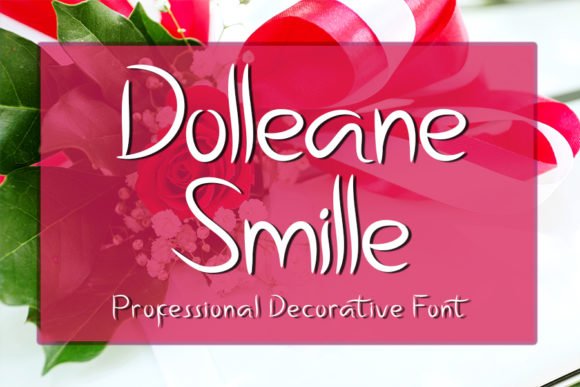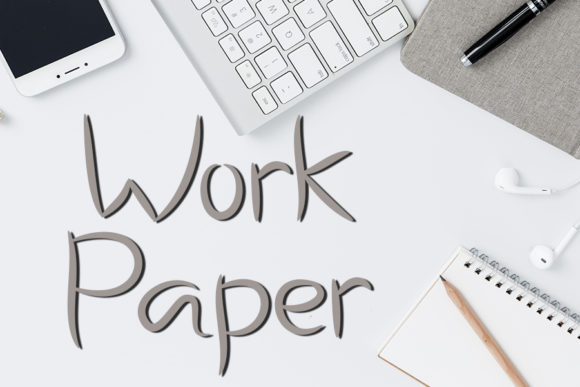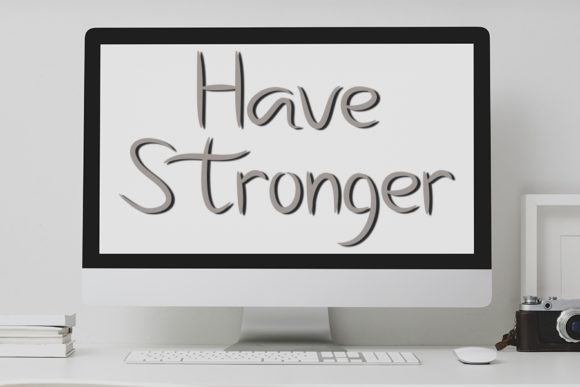
The Perfect Brushstroke: Elevating Designs with Dolleane Smille Font
Remember that moment when you’re working on a design project, and you’re stuck on finding the perfect font to convey your message? You scroll through endless options, and none seem to capture the essence of your vision. That’s when you stumble upon a hidden gem – a font that speaks to you, and elevates your design to new heights.
Enter Dolleane Smille Font, a stunning handwritten font that embodies classic calligraphy. This elegant font is a versatile tool for designers, allowing you to add a touch of sophistication to a wide range of projects, from branding and headings to wedding designs, invitations, and logos. With its charming and refined style, Dolleane Smille Font is an invaluable asset for designers looking to create truly memorable designs.
Dolleane Smille Font Key Features
- Unique Characteristics: Dolleane Smille Font is a unique, handwritten font that features irregular brushstrokes and subtle imperfections, giving it a personal and organic feel.
- Language Support: The font supports a wide range of languages, including Latin, Greek, and Cyrillic scripts.
- Font Weight and Style: Dolleane Smille Font comes in 2 font weights: Regular and Bold, and 2 font styles: Normal and Italic.
- Glyphs and Characters: The font contains over 400 glyphs and characters, including a wide range of punctuation marks, symbols, and special characters.
Dolleane Smille Font Review
I recently had the chance to work with the Dolleane Smille Font, and I wanted to share my honest thoughts about this font.
- The Dolleane Smille Font has a unique, playful feel that makes it perfect for creating eye-catching headings and titles.
- The font is highly customizable, with a wide range of weight options and ligature support, making it easy to achieve a consistent look across different elements.
- The font’s rounded edges and smooth curves give it a friendly, approachable feel that works well for both digital and print projects.
- The font may not be suitable for formal or professional projects, as its playful feel may not convey the level of sophistication required.
- The font’s rounded edges can make it difficult to read in certain contexts, such as in small text sizes or when used for body text.
- The font’s ligature support can be unpredictable in certain combinations, which may lead to unexpected results.
Overall, the Dolleane Smille Font is a fun and versatile font that works well for creative projects, but may not be the best choice for more formal or professional work. With its unique feel and high level of customizability, it’s a great option for designers looking to add some personality to their designs.
Use the Dolleane Smille Font to add a touch of whimsy and playfulness to your designs. It’s perfect for creating eye-catching headlines, social media graphics, and branding materials. For optimal results, pair the font with bright colors and bold graphics.
Alternatives to Dolleane Smille Font
The Great Vibes Font is a beautiful, elegant script font perfect for creating a sophisticated and luxurious feel. It’s ideal for wedding invitations, luxury branding, and high-end packaging. Compared to Dolleane Smille Font, Great Vibes Font has a more refined and delicate touch, making it suitable for more formal and upscale designs.
Carolyna Pro Font is a modern script font that combines elegance and sophistication with a touch of playfulness. It’s great for creating eye-catching headlines, branding, and marketing materials. In comparison to Dolleane Smille Font, Carolyna Pro Font has a more contemporary feel and is better suited for modern and trendy designs.
Alex Brush Font is a beautiful, handwritten script font that’s perfect for adding a personal touch to designs. It’s ideal for creating invitations, quotes, and other creative projects. Compared to Dolleane Smille Font, Alex Brush Font has a more rustic and hand-written feel, making it suitable for more casual and creative designs.
Q: What is the recommended font size for optimal readability with the Dolleane Smille Font?
The recommended font size for optimal readability with the Dolleane Smille Font is between 12 and 14 points, depending on the context and intended use. However, you can experiment with different font sizes to find the perfect balance between legibility and visual appeal.